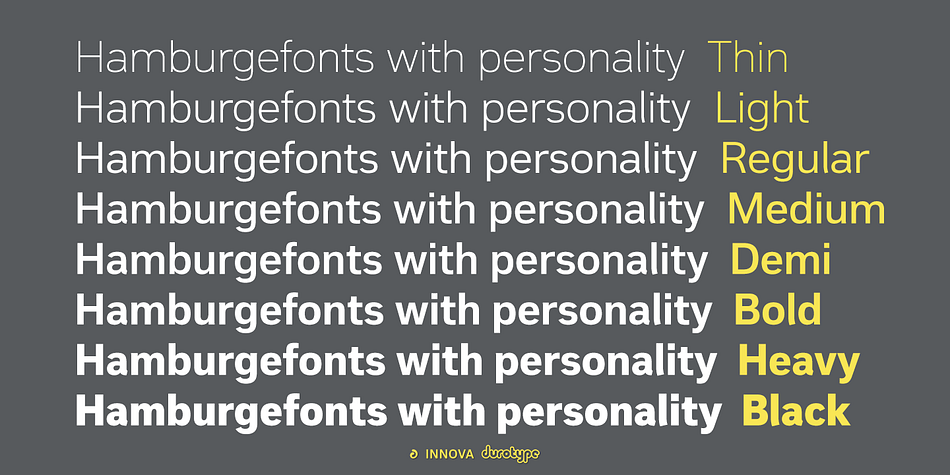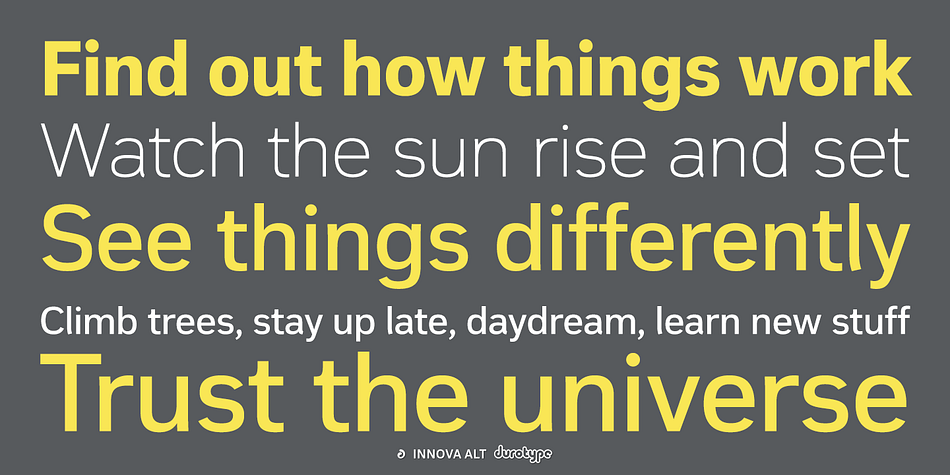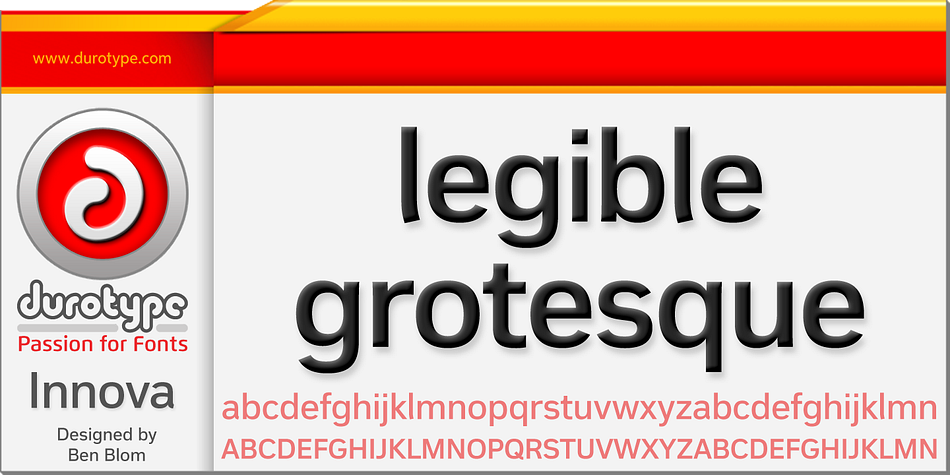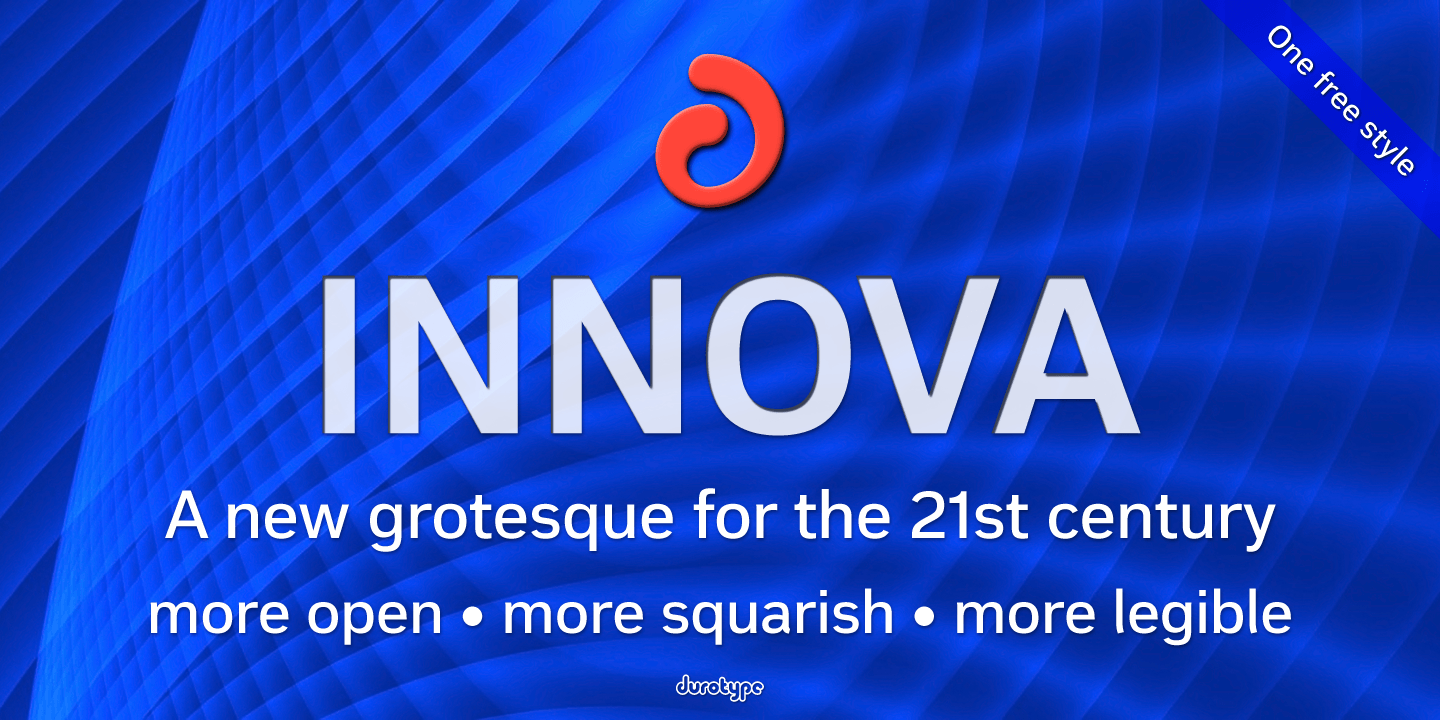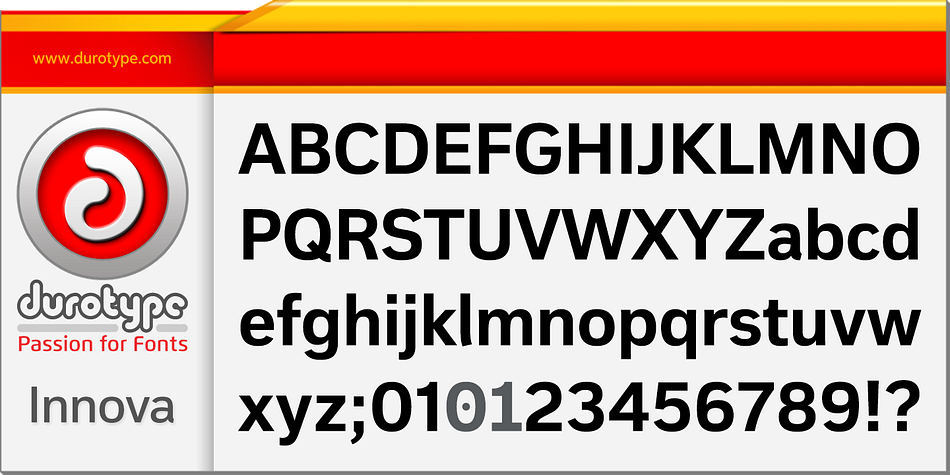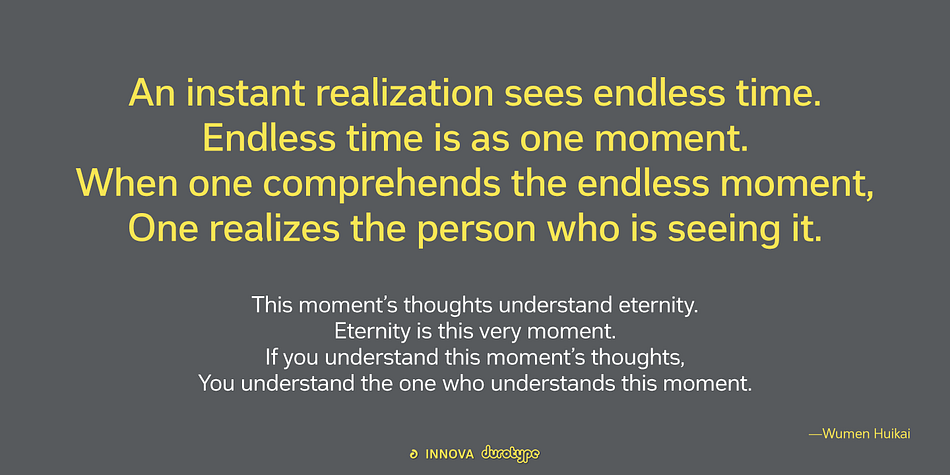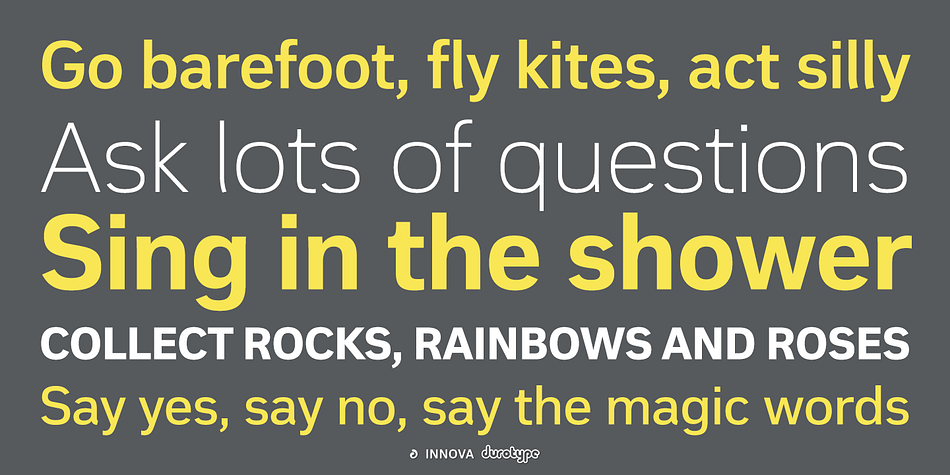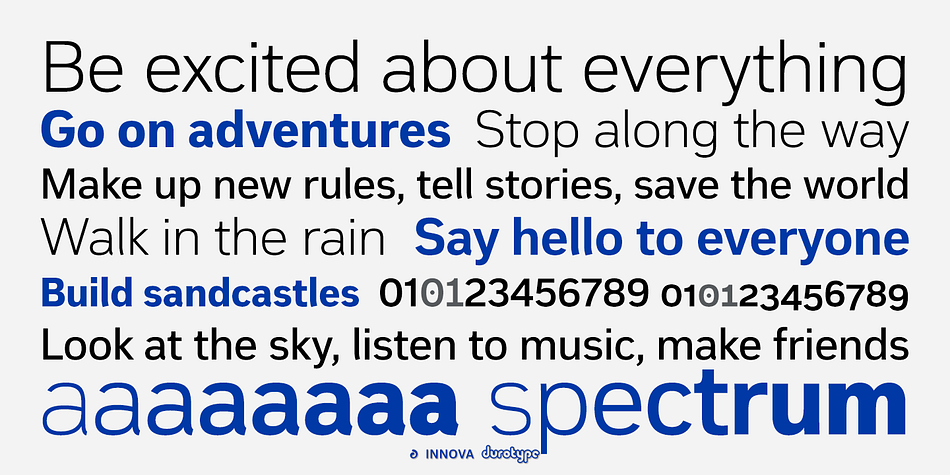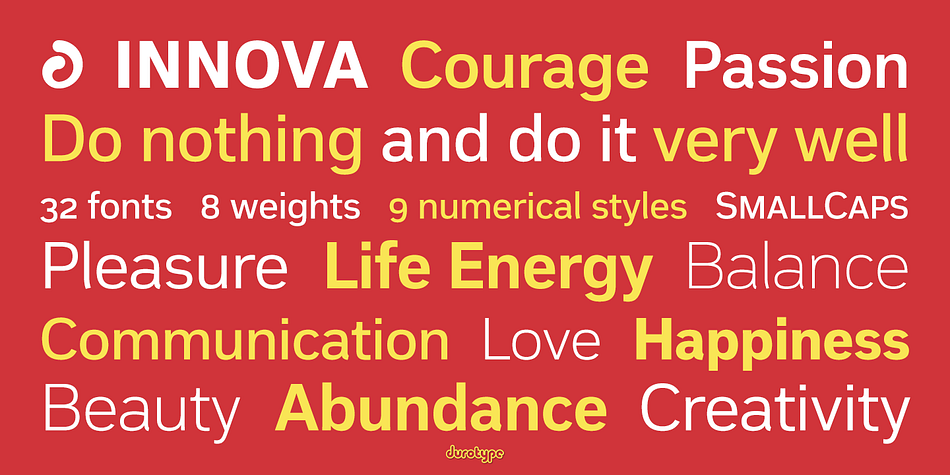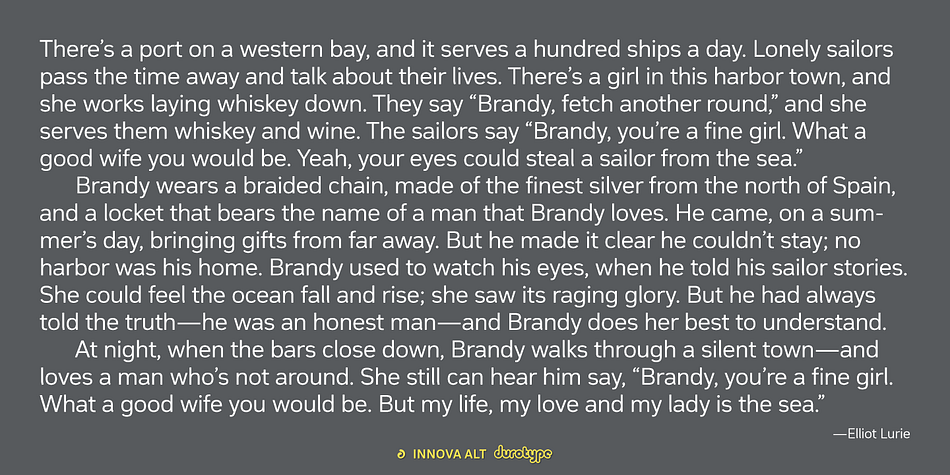
Designed by Ben Blom, Innova is a sans serif font family. This typeface has thirty-two styles and was published by Durotype.
Innova. A new grotesque for the 21st century. More open. More squarish. More legible.
After the many grotesques which have been designed over the years, is it still possible to improve this genre? Innova is a new design—a contribution to the tradition of grotesque typefaces. It is an attempt to improve both this genre’s legibility and versatility.
Innova consists of two families: ‘Innova’ and ‘Innova Alt’. The ‘Innova’ family has rectangular dots. The ‘Innova Alt’ family has round dots—making its personality a little friendlier.
Innova is well suited for both text and display use—for graphic design, corporate identity design, magazines, newspapers, books, reports, editorials, web, advertising, signage, etc.
Innova includes 16 uprights and 16 matching italics. It includes small caps, arbitrary fractions, and extensive language support. It includes nine numerical styles: lining and oldstyle figures (proportional and tabular), small cap figures, superiors, inferiors, numerators, and denominators.
Innova embodies the renewal needed for the traditional grotesques. It is a grotesque which is fit for the 21st century. In order to see whether you agree with this, please try the free Innova Alt Demi.